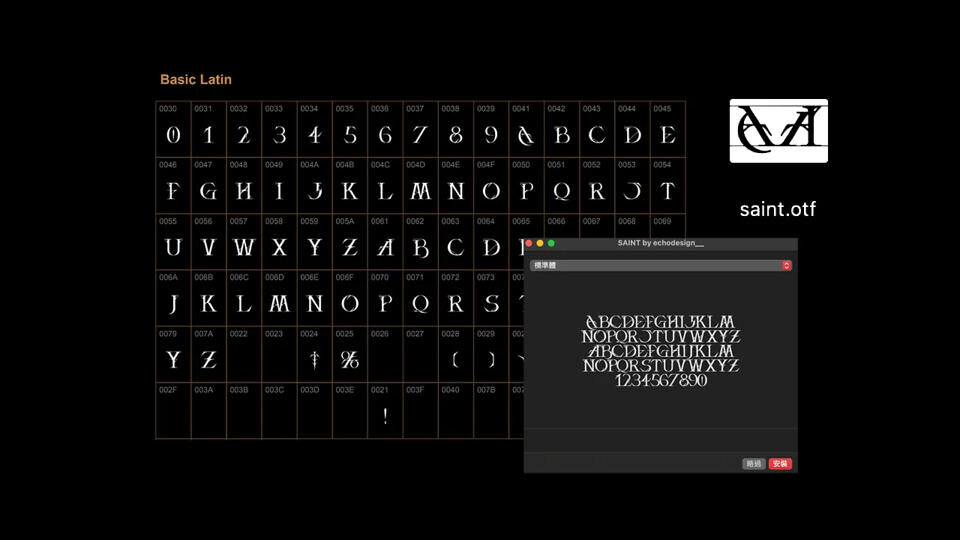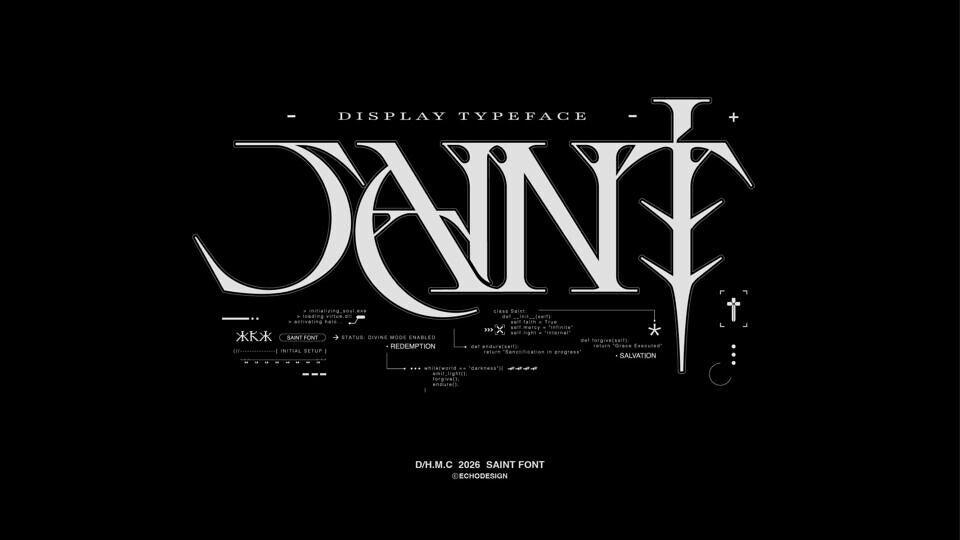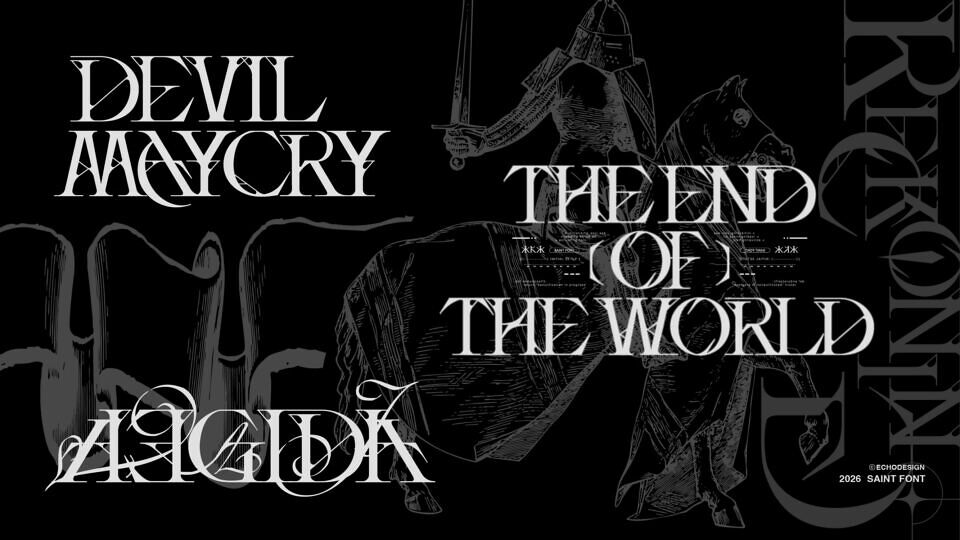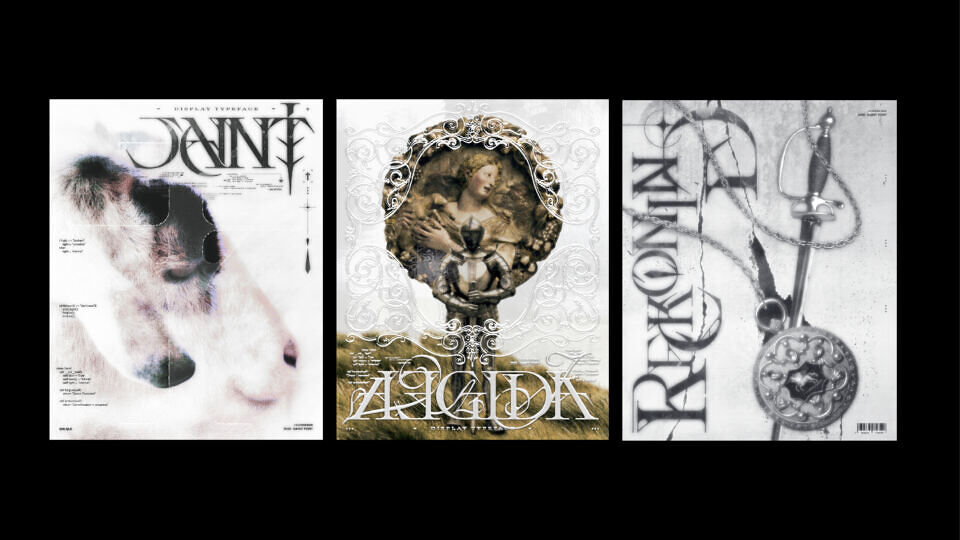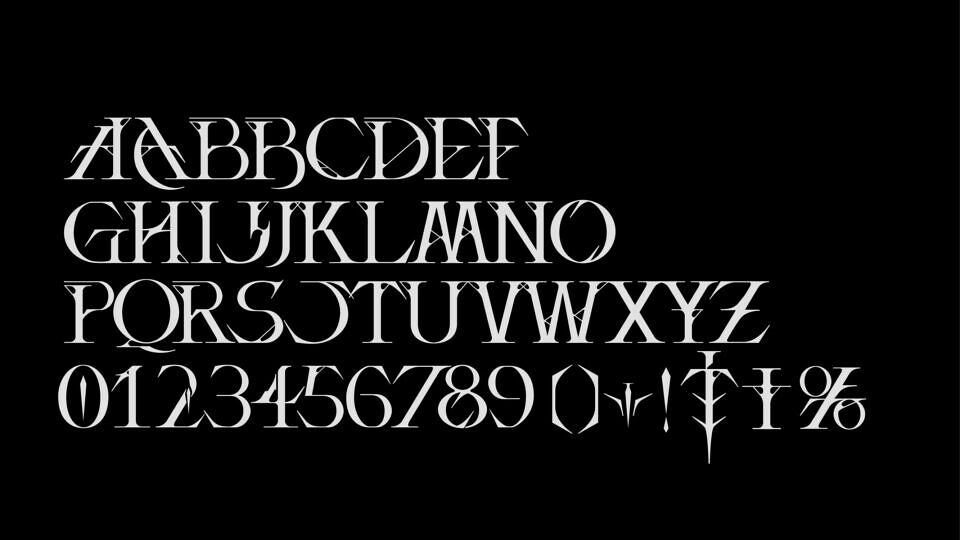
Saint Font
SAINT is a radical free display font blending medieval mysticism with modern avant-garde design. Defined by aggressive, dagger-sharp serifs and intricate ligatures, it evokes a dark fantasy aesthetic perfect for high-impact branding.
Its architectural structure and high-contrast strokes create a commanding presence, ideal for fashion editorial, luxury streetwear, or digital posters. Featuring decorative elements reminiscent of thorns and ancient iconography, SAINT transforms typography into a bold visual statement that bridges the gap between the divine and the macabre.